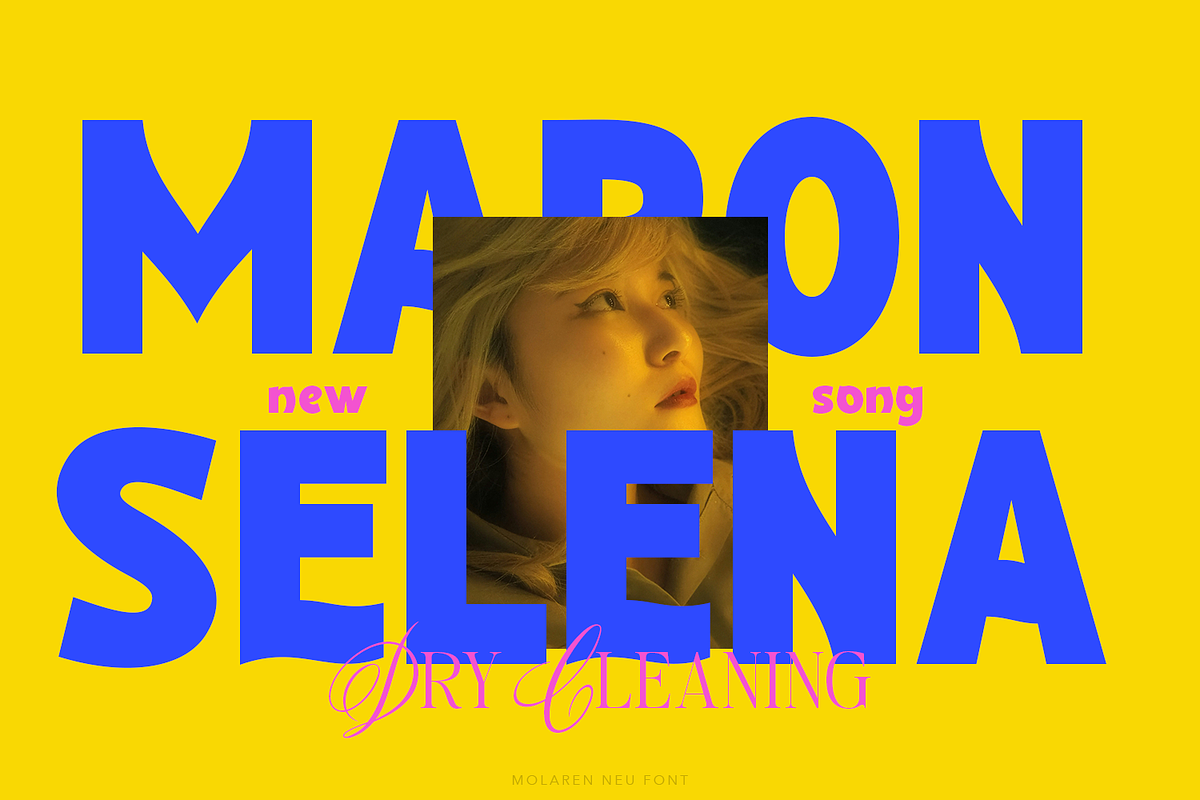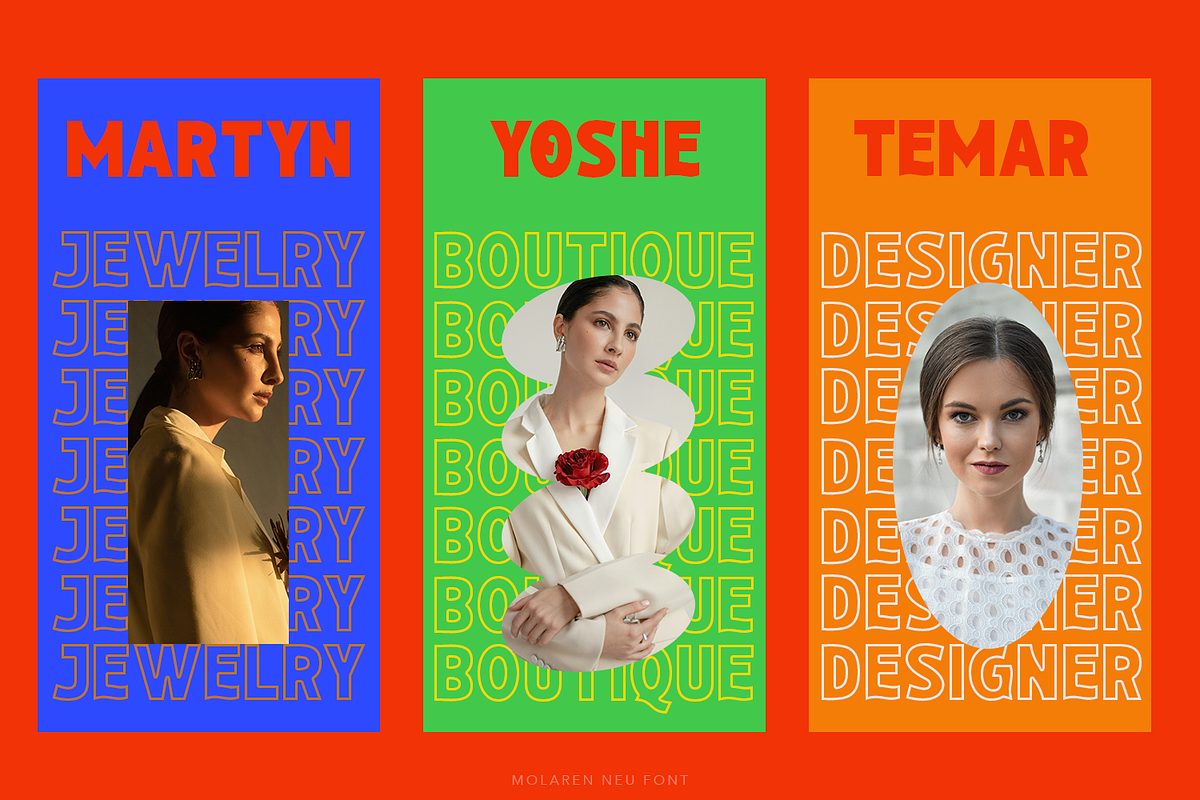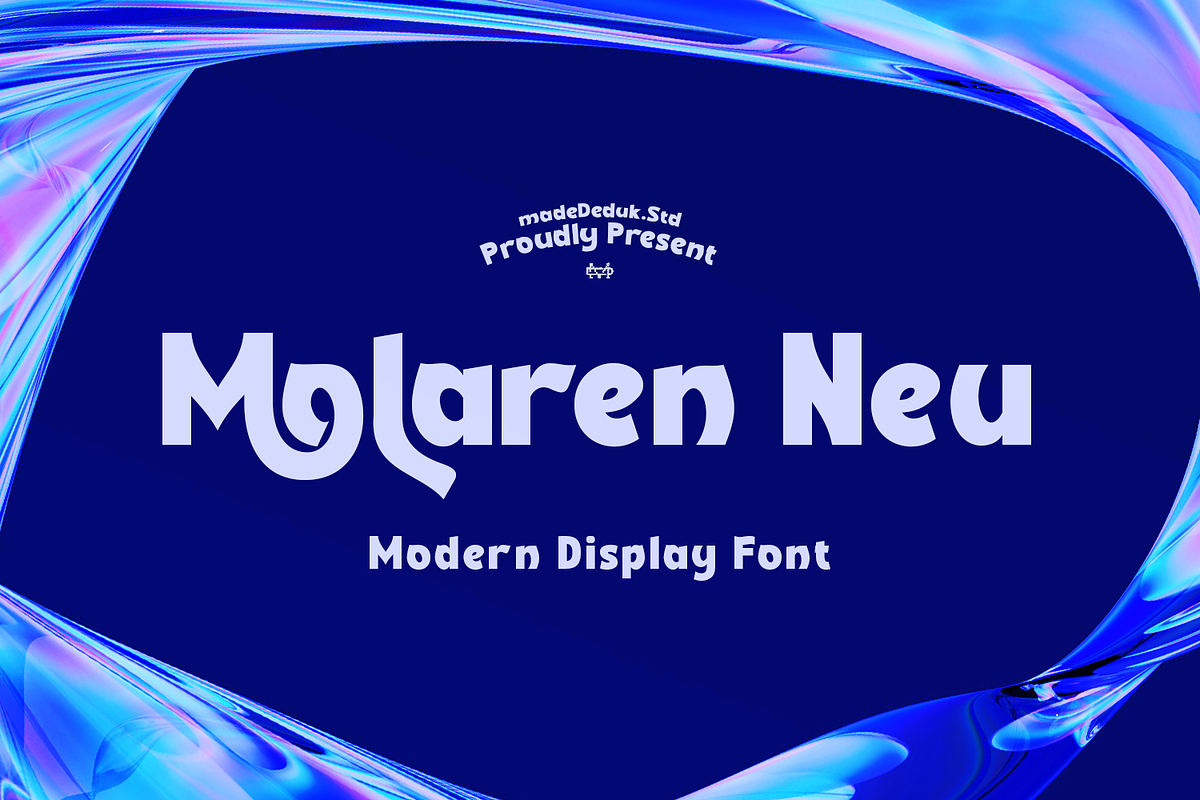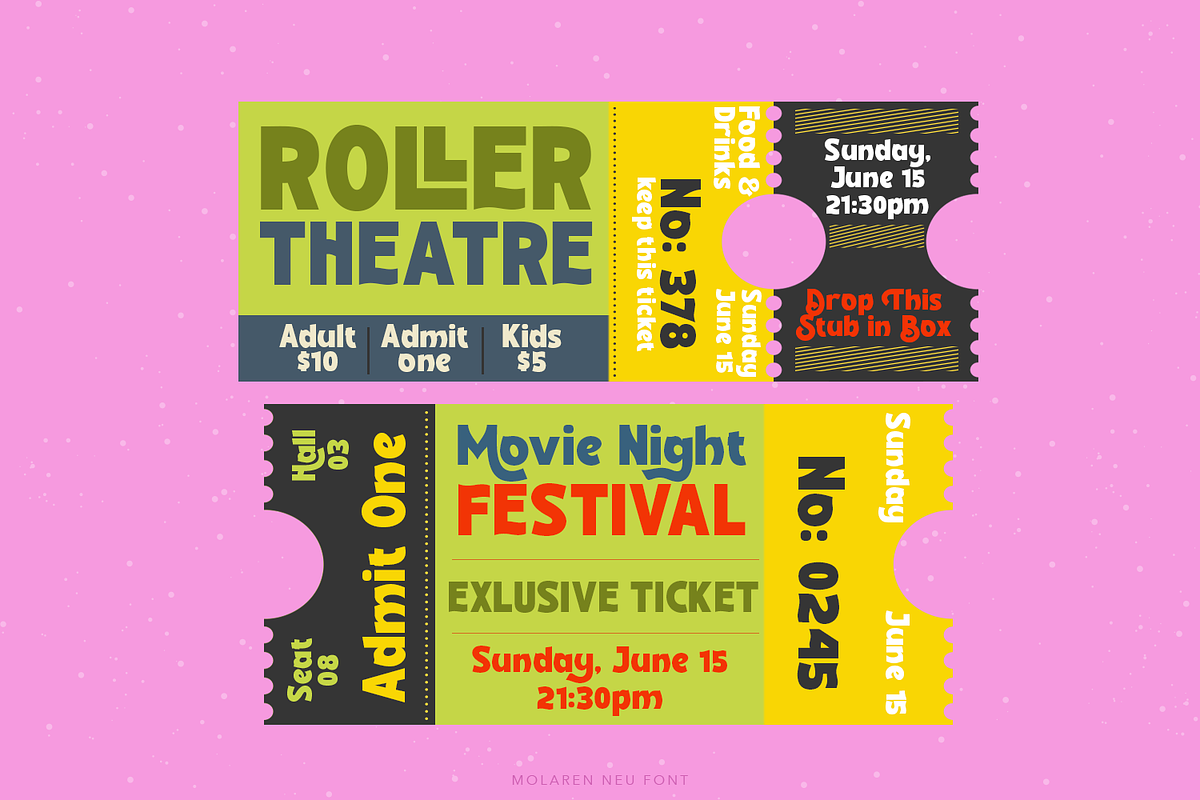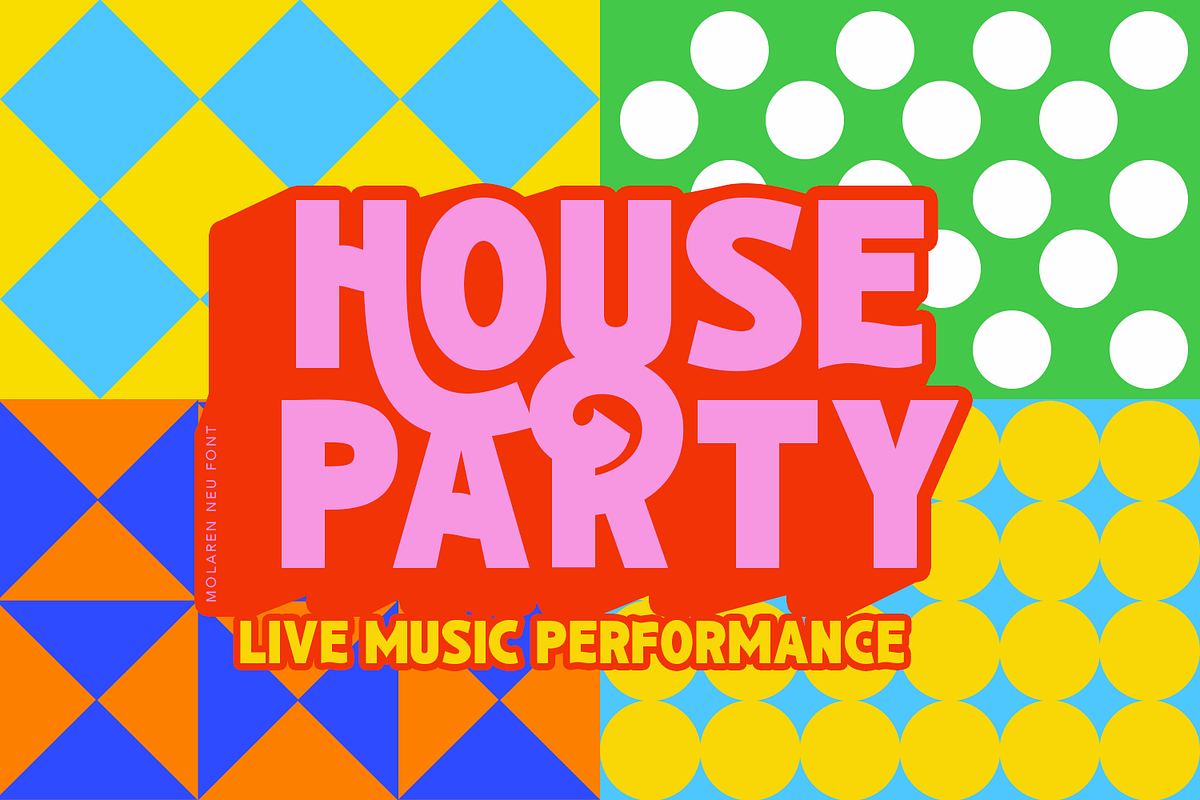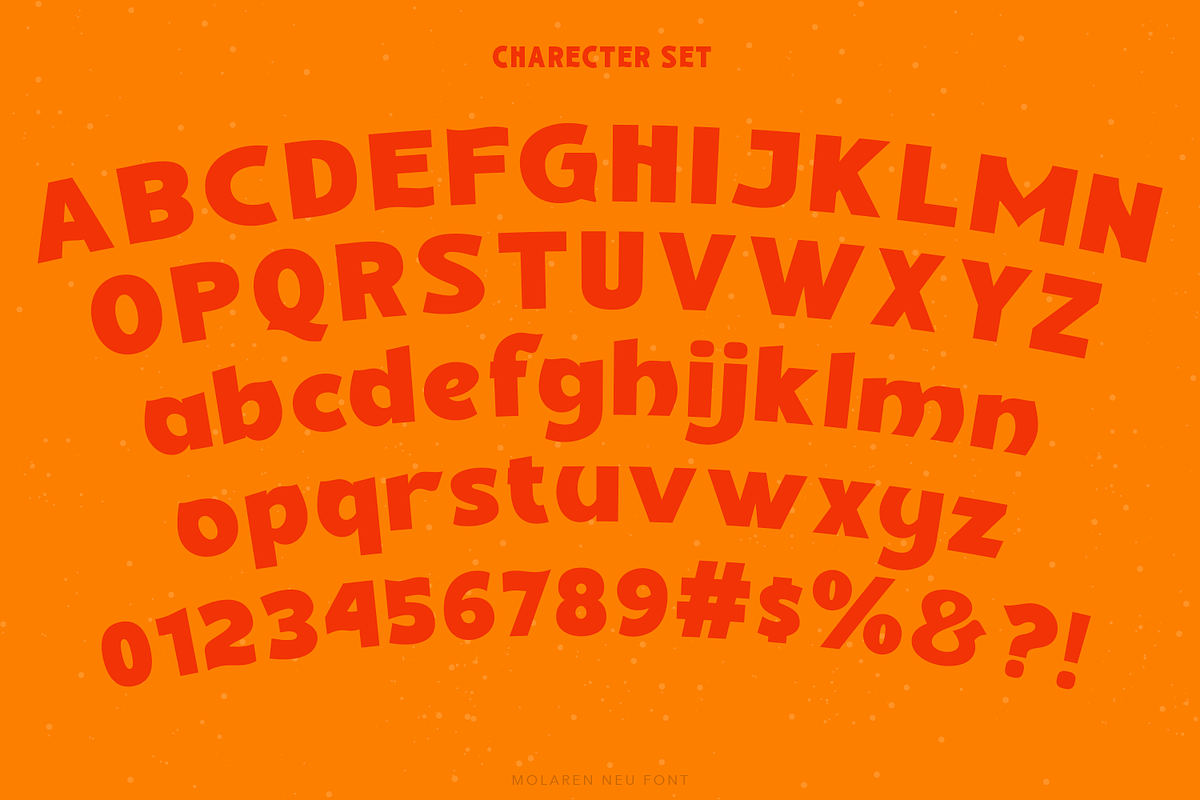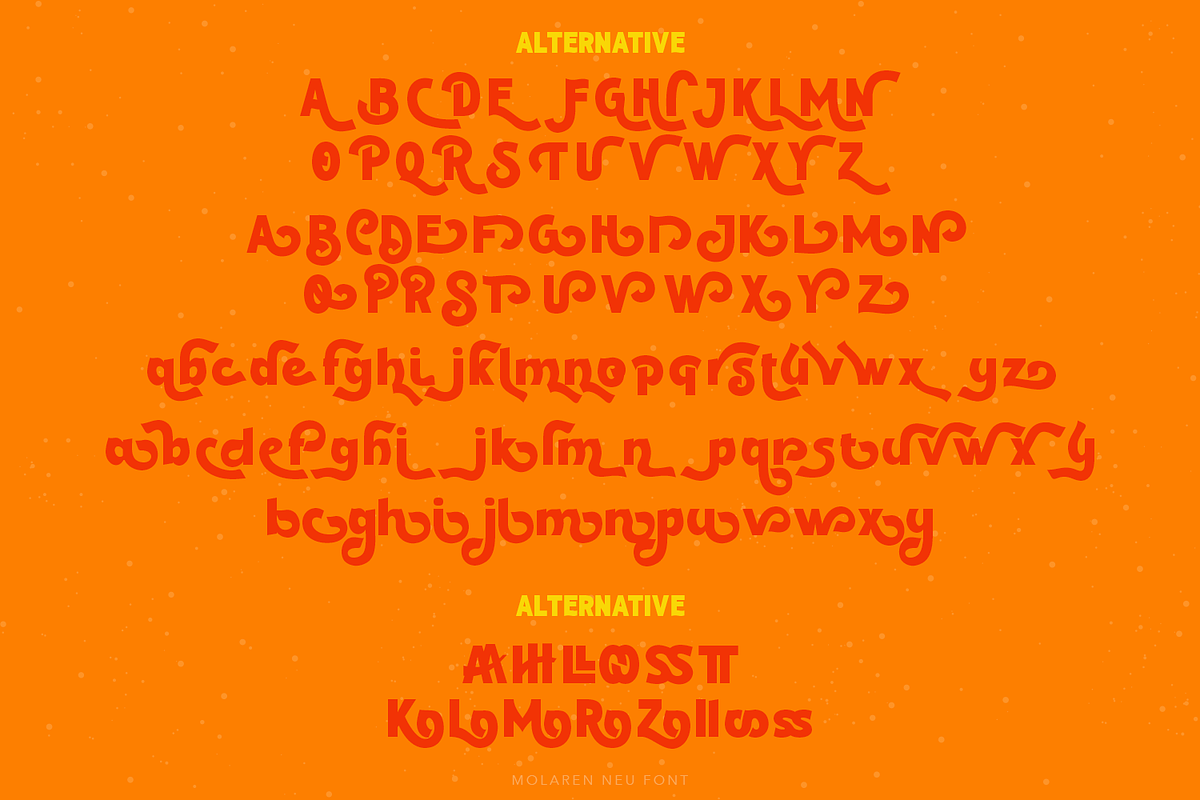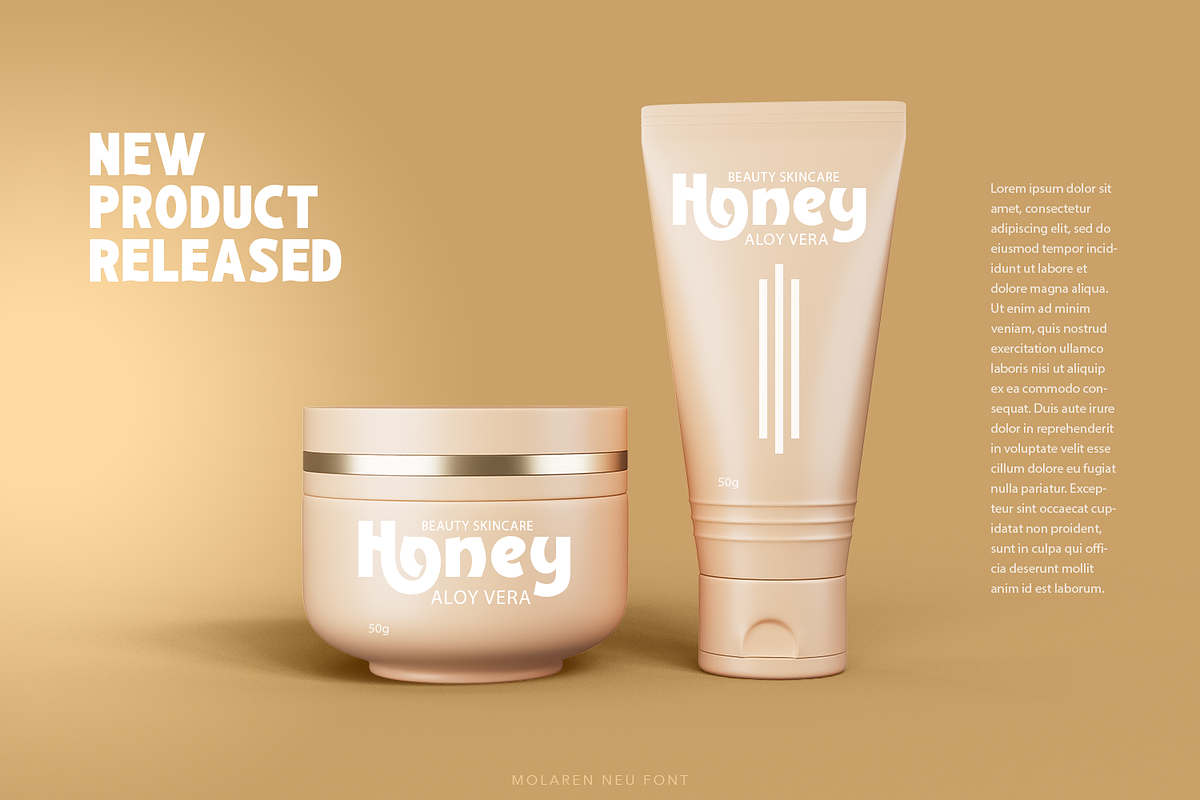
Molaren Neu
Molaren Neu is a modern display font, you can explore and combine creating rhythm for comfortable reading. Come with single weight and unique shape, legible and expressive shapes a lot of stylish alternates characters and ligature will makes this font suitable for your any project design.